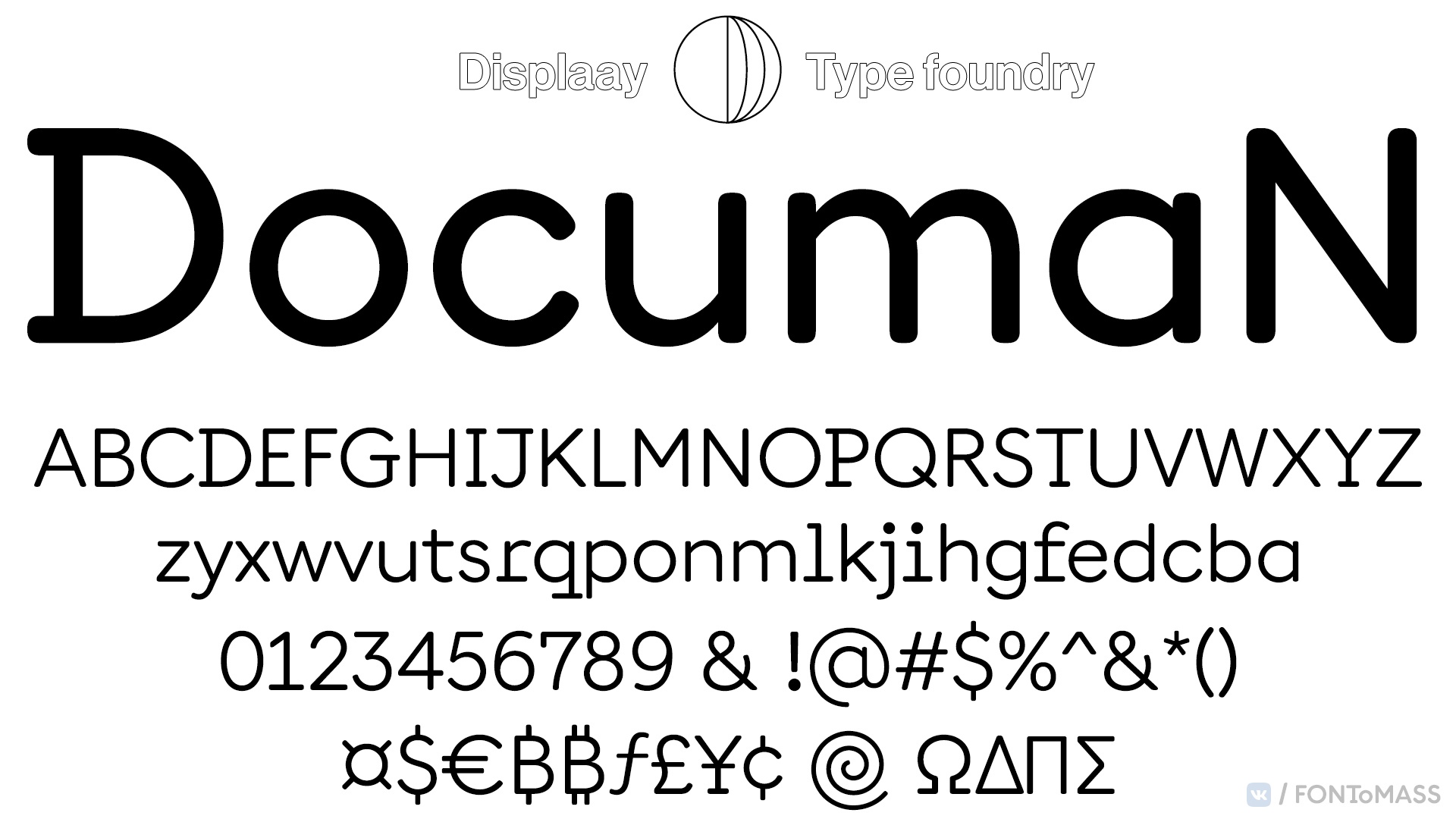
Documan Font
Documan Font is perfect for professional branding, corporate presentations, editorial layouts, website typography, and marketing materials. Its clean and structured design provides a modern, authoritative feel.
What makes Documan Font exciting is its balanced proportions and sleek lines, which ensure readability while giving a contemporary, polished look. The font’s versatility allows it to adapt to both formal and creative design contexts.
The Documan Font family includes Regular, Bold, Italic, and Light styles, offering designers the flexibility to create cohesive typographic hierarchies and striking visual compositions.